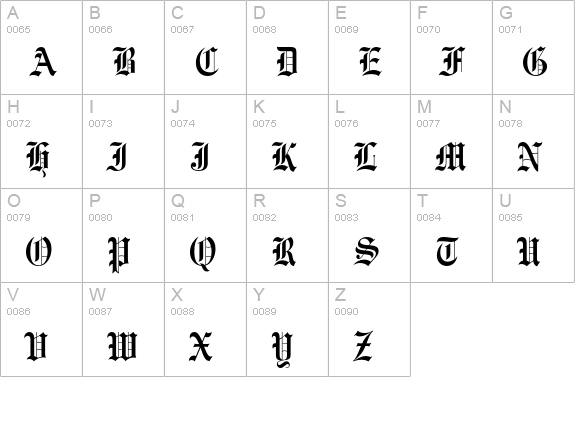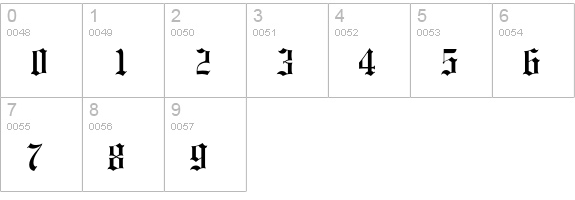
Engravers' Old English Font Details
Engravers' Old English font is a timeless and elegant typeface that exudes sophistication and class. With its intricate details and historic charm, this font is perfect for adding a touch of old-world flair to your projects. The ornate letterforms and intricate flourishes of Engravers' Old English font make it ideal for creating elegant invitations, branding materials, and vintage-inspired designs. Best of all, Engravers' Old English font is available for free download at FontsMarket.com. Whether you're a designer looking to add a touch of vintage elegance to your work or a hobbyist wanting to experiment with a classic typeface, Engravers' Old English font is the perfect choice. Download this exquisite font today and elevate your designs with its timeless beauty.